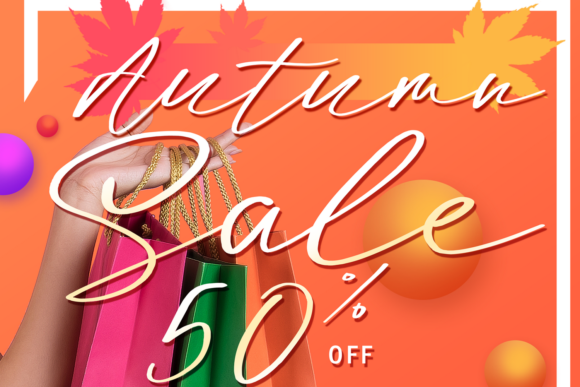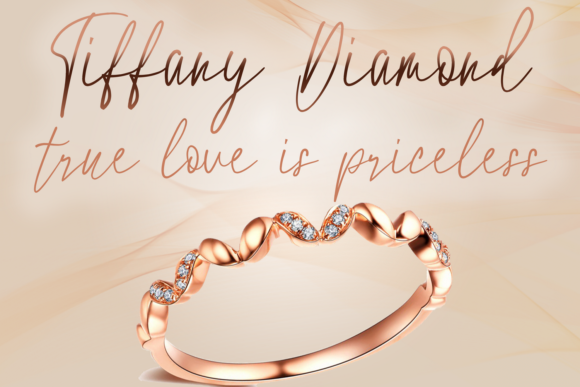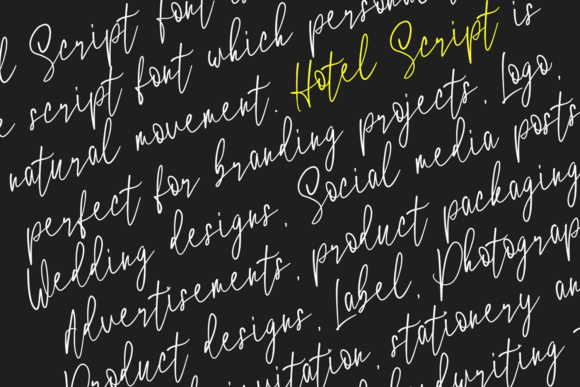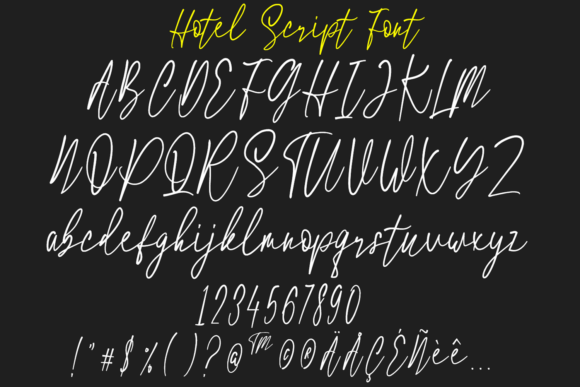
Discover the Magic of Hotel Script Font
As designers, we’ve all been there – staring at a blank page, trying to find the perfect font to bring our creative vision to life. And then, it hits us – a spark of inspiration that sets our imagination ablaze. For many, this moment comes when they stumble upon a font that perfectly captures the essence of their design project. This is where Hotel Script Font comes in, a beautiful signature script font that’s about to revolutionize your design game.
With its natural movement and elegant strokes, Hotel Script Font is the perfect design resource for any high-quality creative project. Whether you’re working on a branding campaign, a wedding design, or a simple invitation, this font will elevate your work to the highest level. And the best part? It’s available for free download, making it an invaluable asset for designers of all levels.
Key Features of Hotel Script Font
- High-quality design: Hotel Script Font is a unique and elegant script font designed for creative projects, offering a touch of sophistication and refinement.
- Perfect for creative projects: Hotel Script Font is ideal for use in creative projects, such as wedding invitations, menus, and branding materials, where a touch of elegance and sophistication is desired.
Honest Review: Hotel Script Font
I’ve had the chance to work with Hotel Script Font on a recent creative project, and I must say it’s been a great addition to my design resource library. ✨ The font’s elegant and luxurious feel makes it perfect for high-end branding and marketing materials.
One of the things that works well with Hotel Script Font is its high quality and versatility. It’s suitable for a wide range of creative projects, from business cards to signage and even digital media. The font’s smooth and flowing lines make it easy to read and visually appealing.
While Hotel Script Font is a great resource, there are a few limitations to consider: ⚠️ it’s not suitable for all types of projects, such as news headlines or body text where a more readable font is needed. Additionally, some users may find the font’s ornate feel too decorative for certain designs.
Overall, I’m impressed with Hotel Script Font and would definitely recommend it to designers looking for a high-quality, elegant font for their creative projects.
Hotel Script Font is a high-quality design resource ideal for creative projects that require a unique and elegant touch. This font is perfect for adding a touch of sophistication to your designs, and it’s available for free download.
Hotel Script Font is commonly used for:
Branding and logos
Typography-based designs
Social media graphics and posters